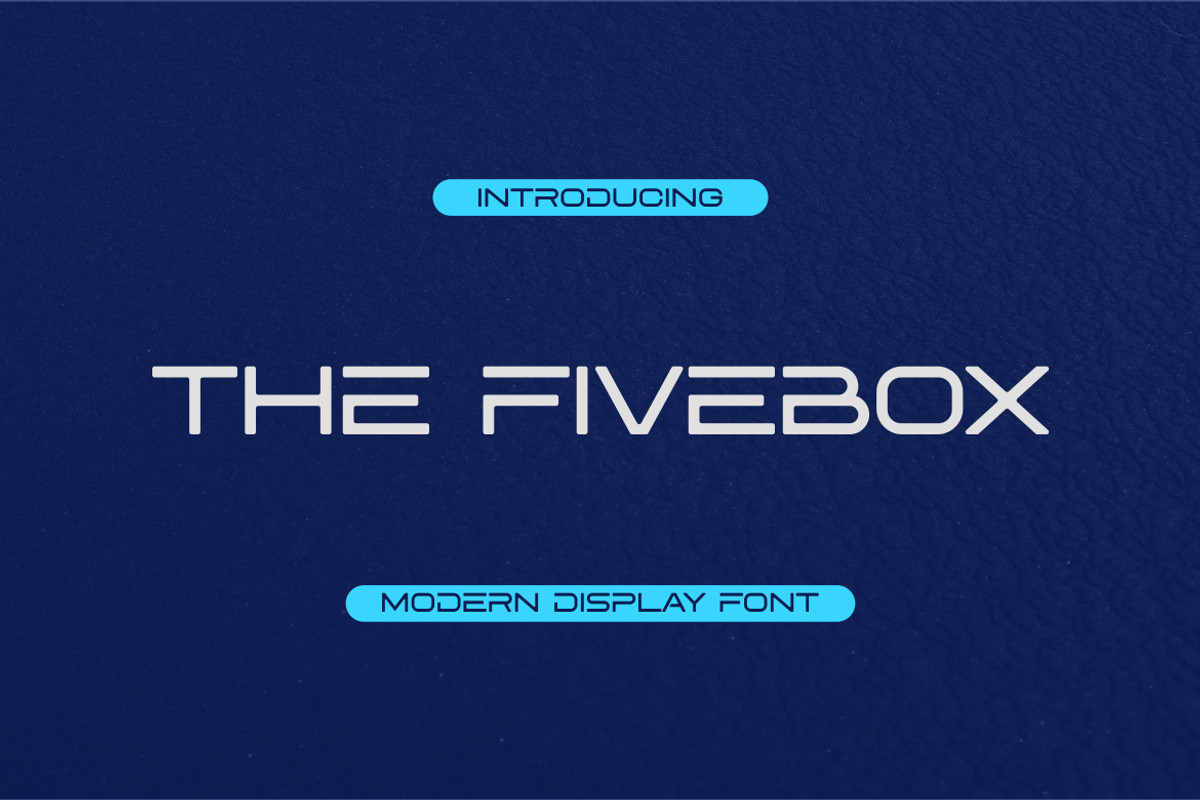
The Fivebox Font Free Download is a modern, boxy display typeface with a futuristic twist. Featuring sharp corners, geometric structure, and a minimalist edge, The Fivebox is perfect for tech branding, posters, digital artwork, esports titles, logos, and sleek user interfaces.
Its bold presence and modular aesthetic give your designs a clean yet powerful look, especially in all-caps layouts. Whether you're working on a cyberpunk theme, a startup pitch, or bold visual headlines, The Fivebox brings clarity and innovation to your typography.
Great for both print and digital projects, this font is made to stand out and deliver impact with a modern personality.